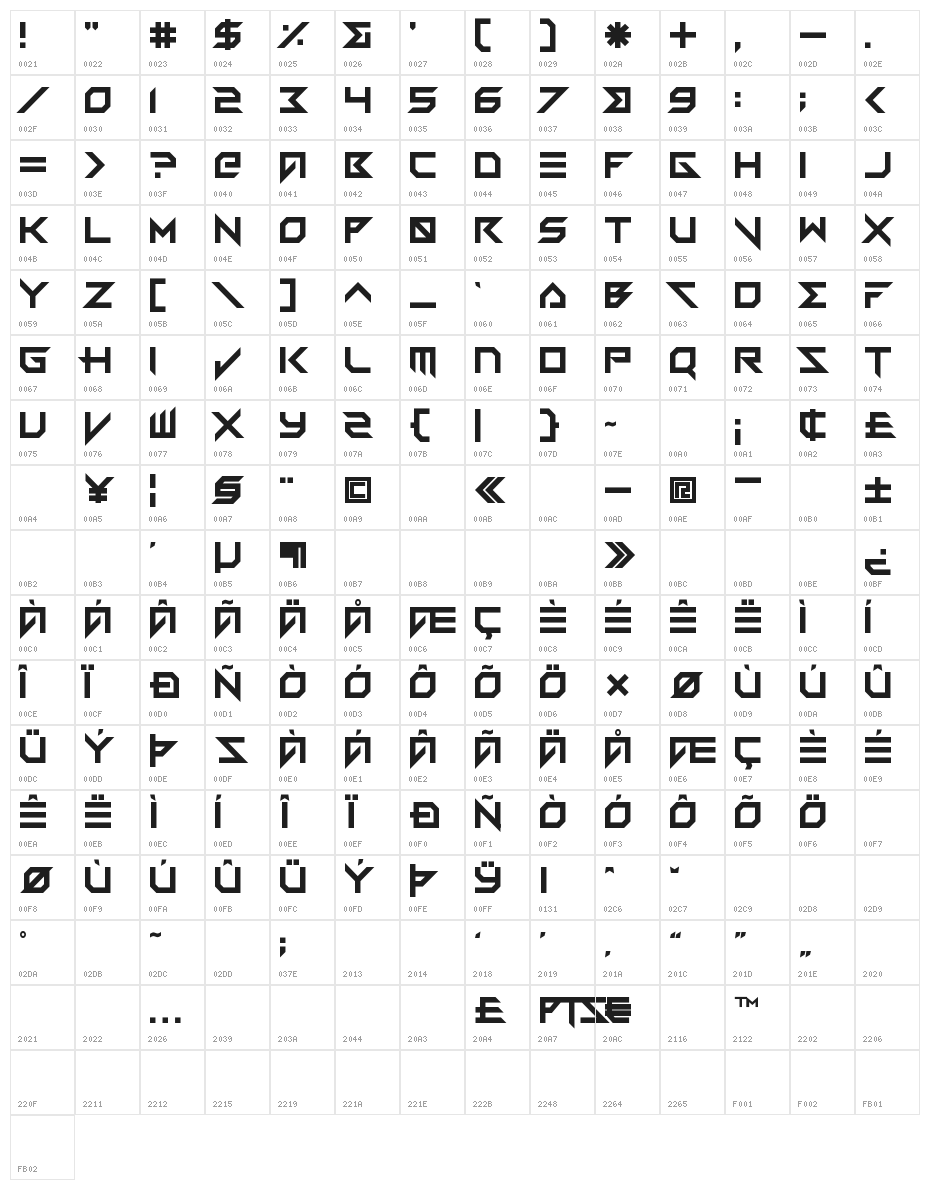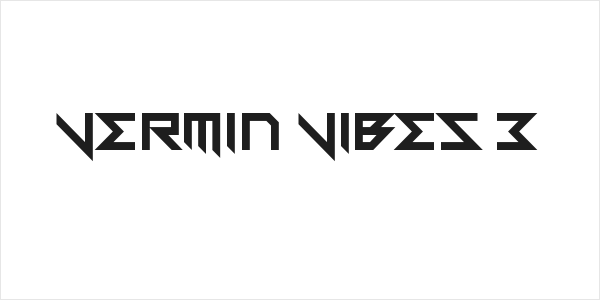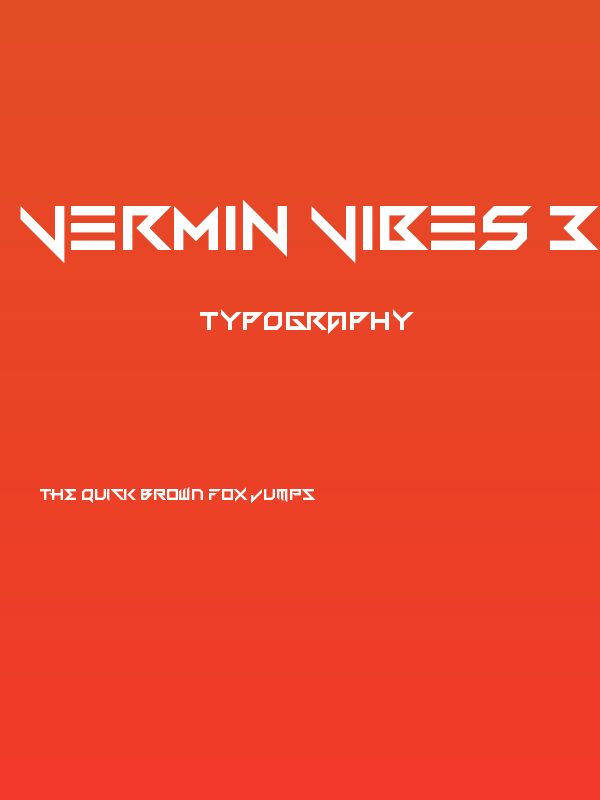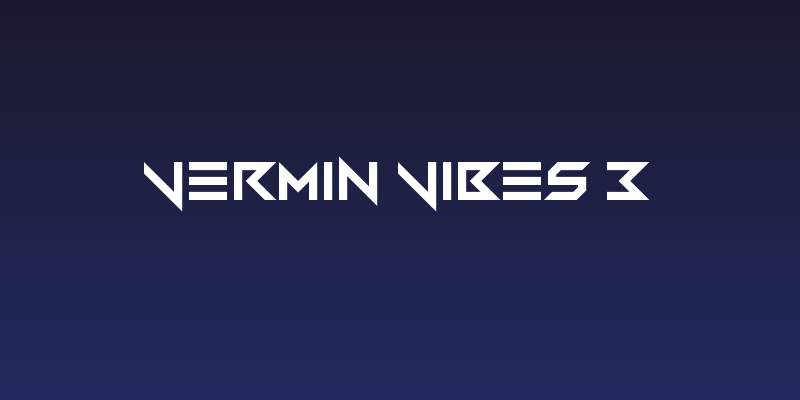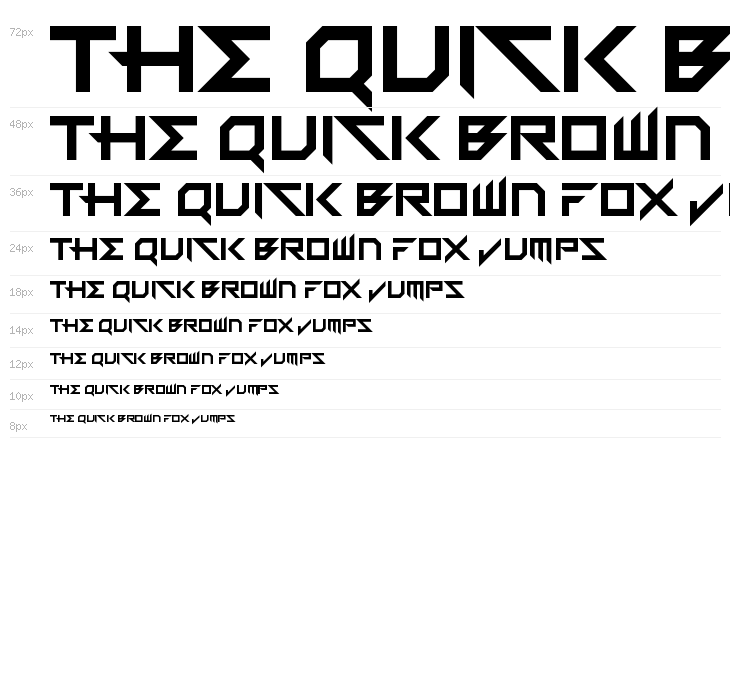
Vermin Vibes 3 Font
Vermin Vibes 3 Description
This font exhibits a bold, geometric style with sharp angles and a futuristic aesthetic. The characters are constructed with a combination of straight lines and pointed edges, creating a dynamic and edgy appearance. The uppercase and lowercase letters maintain a consistent design, emphasizing angularity and symmetry. Numbers and special characters follow the same stylistic approach, ensuring uniformity across all glyphs. The font's unique design makes it stand out, ideal for projects that require a modern and unconventional look.
| Overall Style | Futuristic, Edgy |
| Proposed Projects | Ideal for sci-fi themed designs, video game titles, posters, and branding that requires a modern, edgy look. |